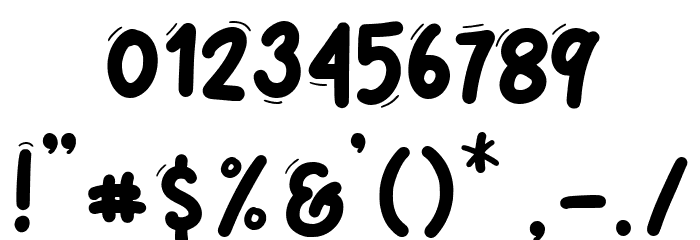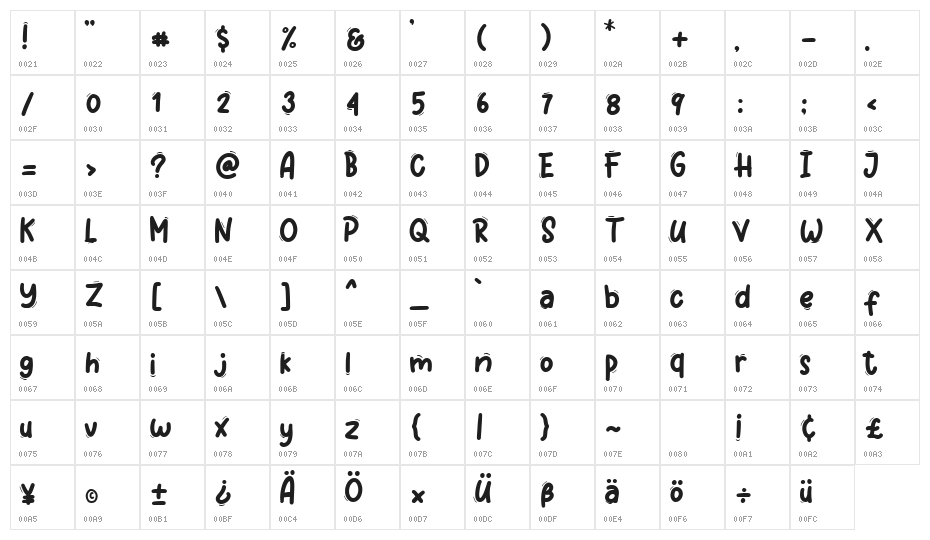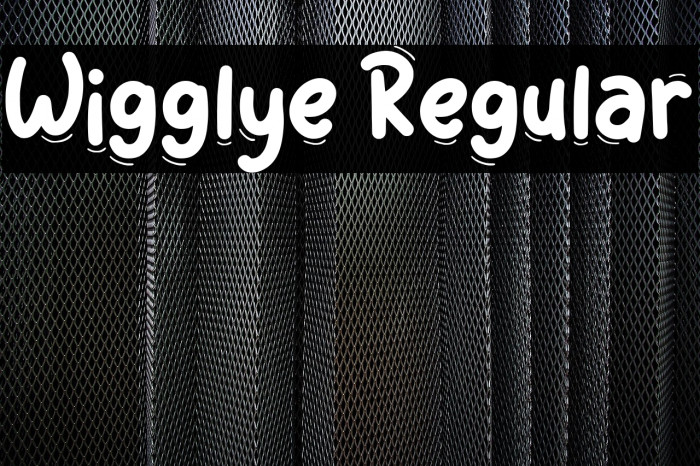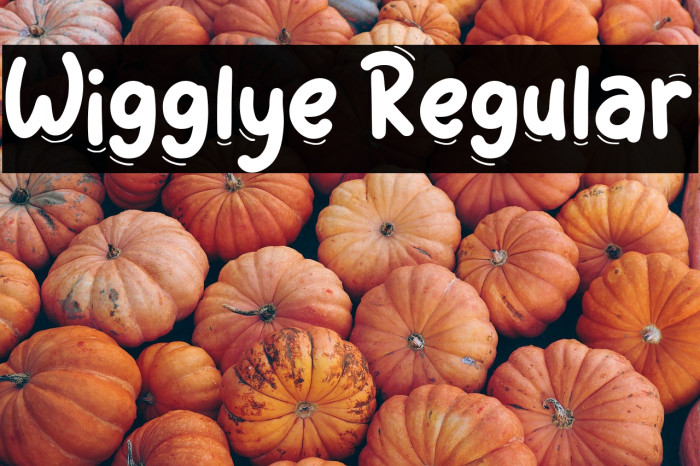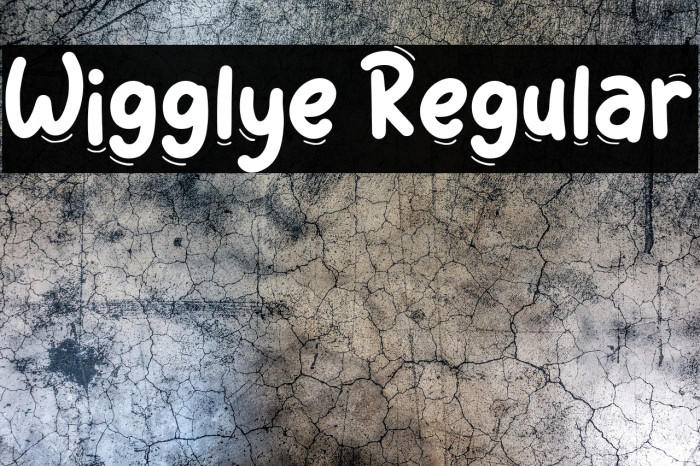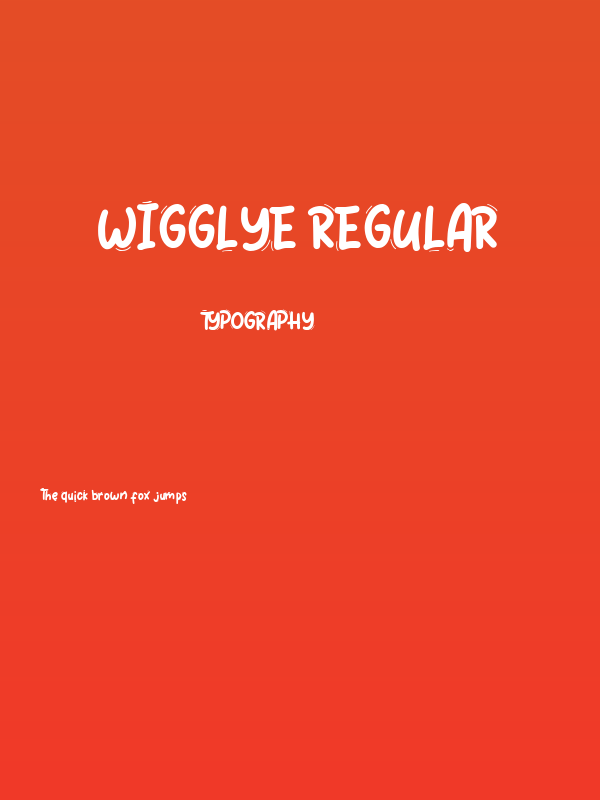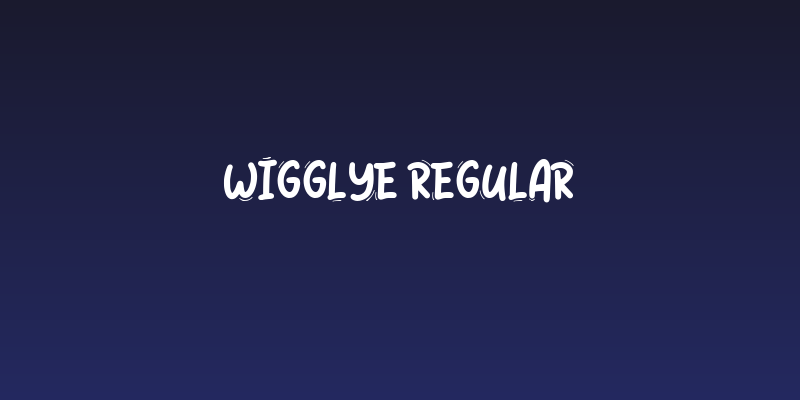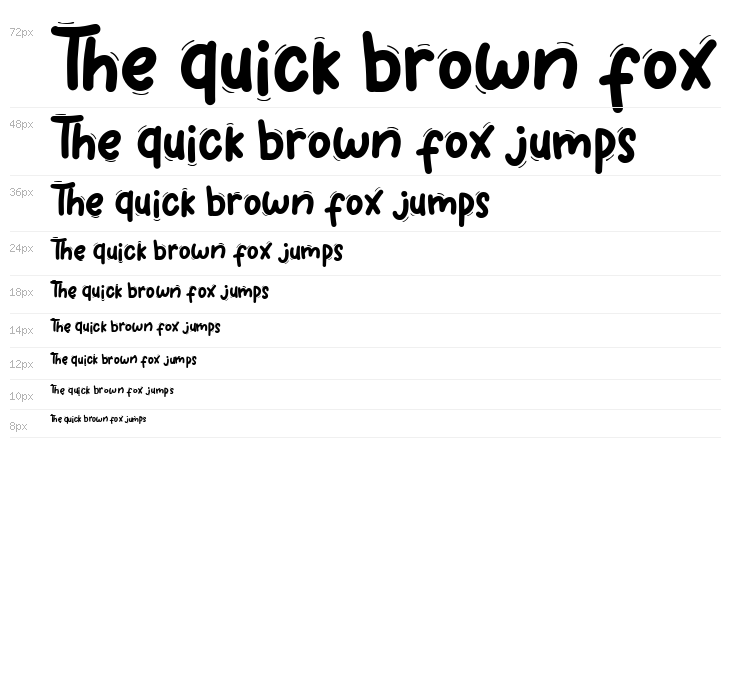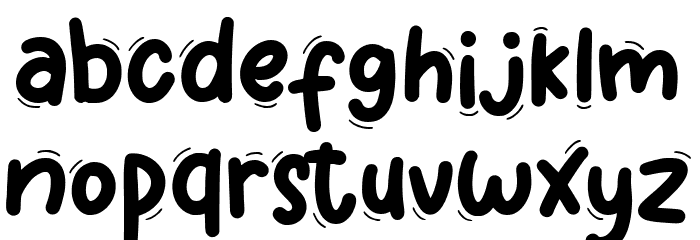
Wigglye Regular Font
Wigglye Regular Description
This playful and dynamic font features a wavy, hand-drawn style that gives it a lively and energetic appearance. The characters are bold and rounded, with a whimsical touch that makes them stand out. The strokes are consistent in thickness, providing a uniform look across all characters. The font includes both uppercase and lowercase letters, numbers, and a variety of special characters, making it versatile for different uses. Its unique style is perfect for projects that require a fun and informal tone.